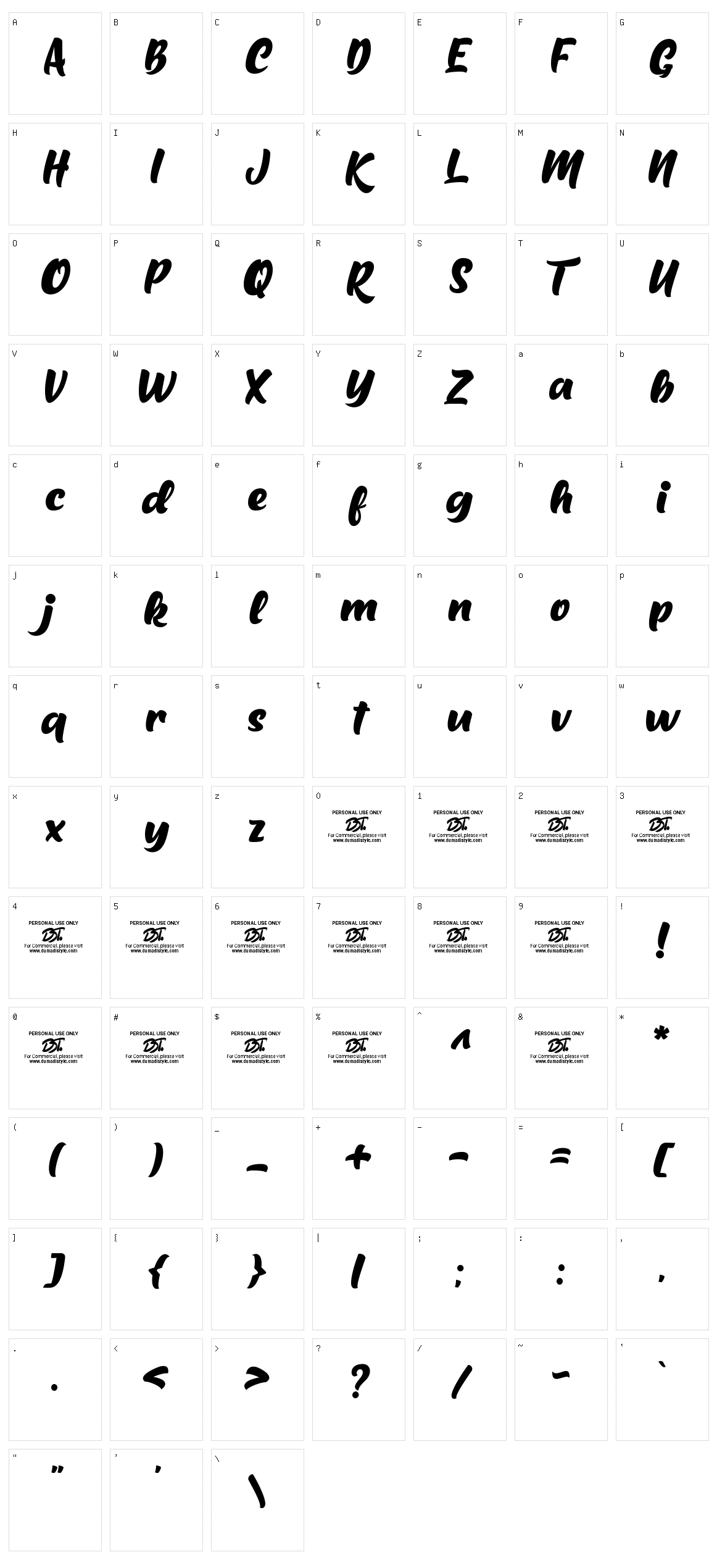
The free font Milton Keynes is carefully designed by DumadiStyle, showcasing a thoughtful balance of creativity and usability and falls under the Old-School font style. When you download the ZIP file, it contains only 762.74 KB of font files, making it lightweight and quick to download. Please review the license details below to understand permitted usage and distribution rights. If license information is not available, we recommend using this font for personal projects only or contacting the author directly for commercial usage permissions.